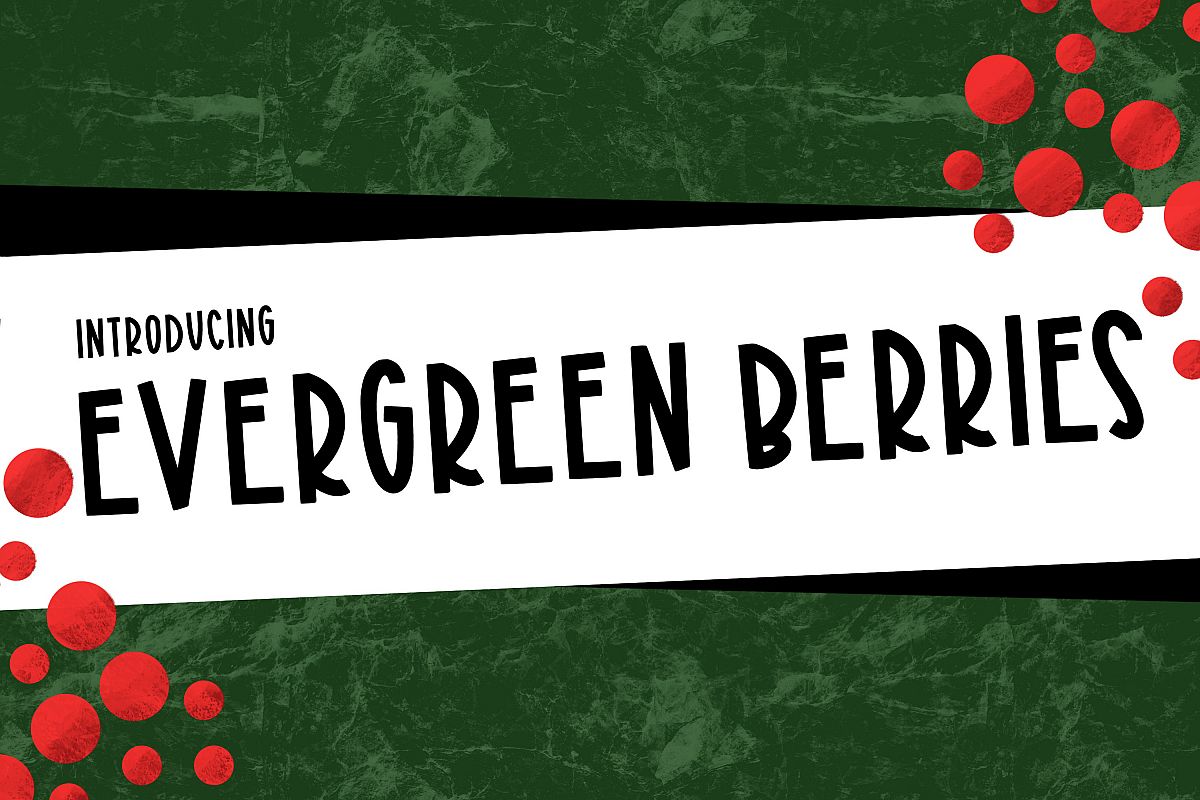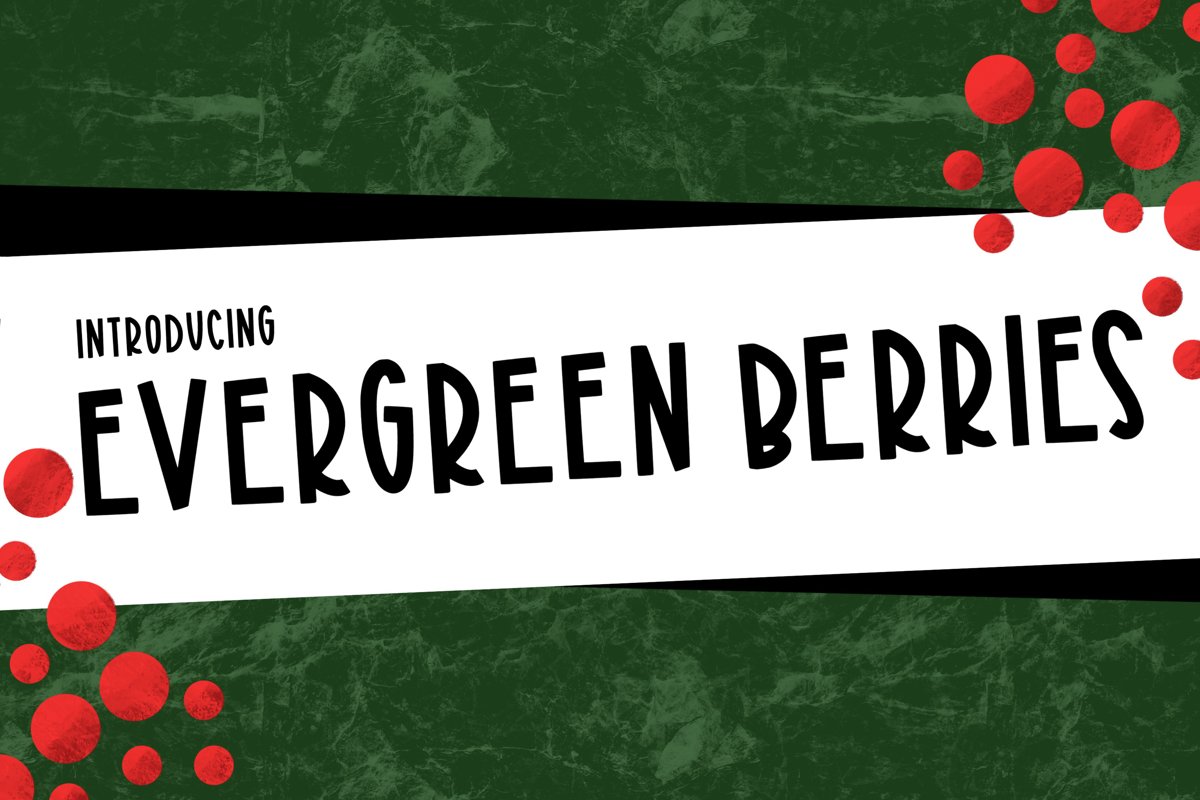
Kitaleigh is a small design and lettering studio based in Houston, Texas. We offer hand lettered designs and fonts, designer resources such as procreate brushes and templates. Our work reflects the handmade nature of our process through unrefined brushstrokes, imperfect lines, and an organic feel that is both whimsical yet modern.